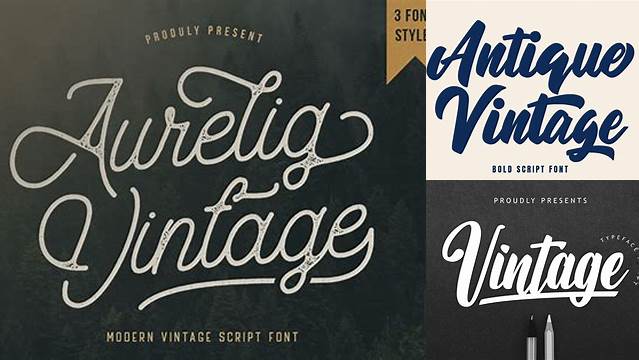
Free Antique Script Fonts: Download & Design Guide
Looking for the perfect touch of vintage charm for your next project? You've come to the right place! This article is your ultimate guide to finding and using antique vintage script fonts – and the best part? Many are available as a free download! We'll dive into what makes these fonts so special, where to find them, and how to use them to create stunning designs. From elegant wedding invitations to eye-catching website headers, discover how these timeless fonts can elevate your creative work. So, let's get started, shall we?
The Allure of Antique Vintage Script Fonts
Antique vintage script fonts possess a unique quality that instantly adds a sense of history, sophistication, and elegance to any design. They evoke a feeling of nostalgia, reminding us of handwritten letters, classic signage, and the artistry of a bygone era. These fonts are characterized by their flowing, often ornate letterforms, which can range from delicate and refined to bold and expressive. The beauty of antique vintage script fonts lies in their ability to convey a specific mood or message, whether it's romance, formality, or a touch of whimsy. The subtle imperfections and unique characteristics of each font give a sense of authenticity that is hard to replicate with modern, digitally-perfect typefaces. They often feature swashes, ligatures, and alternative glyphs, providing designers with a wealth of options to create truly unique and visually appealing designs. Using these fonts allows you to transport your audience to another time, to create a sense of timelessness and style. The versatility of these fonts is remarkable, as they can be used across a wide range of applications. They're ideal for creating a vintage vibe or adding a touch of old-world charm. Think about the impact of these fonts on a poster, a logo, a business card, or even a social media post. The possibilities are endless! Now, let's explore the diverse world of antique vintage script fonts and see how they can enhance your designs. The use of these fonts is not only aesthetically pleasing but also carries with it a sense of history and storytelling. They bring a human element to your work, making it more relatable and engaging for your audience. They are an excellent tool to have in your arsenal, especially if you are a designer. Remember, these fonts are not just about aesthetics; they're about evoking emotion, telling a story, and making your design stand out from the crowd. So, let's get into how you can find and use these fonts effectively.
When downloading fonts from any website, always be cautious. Look for the license information to confirm the usage rights. Also, scan the downloaded files with your antivirus software before installing them on your computer. Staying safe is always the priority, so be sure to follow these guidelines. And there you have it: some of the best places to find free antique vintage script fonts for your next project!
How to Use Antique Vintage Script Fonts Effectively
Once you've found your perfect antique vintage script font, the next step is to know how to use it effectively. While these fonts can add a beautiful touch to any design, it's essential to use them thoughtfully to avoid overwhelming your audience. Here's how to make the most of your vintage script fonts:
- Choose the Right Font: Not all script fonts are created equal. Consider the overall tone and style of your project when selecting a font. A delicate, flowing script might be perfect for a wedding invitation, while a bold, more rugged script could be better suited for a vintage-themed logo. Consider how the font will look in different sizes and contexts. This will help you determine the best fit for your project's requirements. Also, pay attention to the font's readability, especially for longer texts. Make sure the letters are distinct and easy to read at various sizes. When in doubt, experiment with different fonts to see which one best complements your design.
- Use in Moderation: Script fonts are often best used for headlines, titles, or short phrases. Overusing them can make your design feel cluttered and difficult to read. Pair your script font with a more simple, readable font for the body text to create a visual balance. This contrast can also add depth and interest to your design. Choose a font pairing that complements the style of your script font without competing for attention. For instance, a clean, modern sans-serif font can pair well with an elegant script font. Finding the right balance is the key to an appealing and effective design.
- Consider Readability: While script fonts are beautiful, they can sometimes be challenging to read. Ensure the font is legible, especially at smaller sizes. Avoid using script fonts for long blocks of text. Always test your design to ensure readability across various devices and screen sizes. Make sure the font stands out against the background and that the colors provide adequate contrast. Ensure that the kerning and spacing are optimized for readability. Sometimes, small adjustments can significantly impact how easy it is to read the text. If readability is compromised, consider choosing a different font or modifying your design to enhance clarity.
- Pay Attention to Spacing and Kerning: Proper spacing and kerning (the space between individual letters) are critical for readability. Some script fonts require manual adjustment to ensure the letters flow seamlessly. Take the time to fine-tune these elements for a polished look. Experiment with different spacing options to see what works best for your font choice. Pay special attention to the spacing between letters, as this can affect the overall appearance and readability. Kerning can also enhance your design. In some cases, adjusting the space between certain letter combinations can improve the overall visual appeal. This can also help to create a sense of harmony and balance in your design.
- Experiment with Color and Background: The right color and background can significantly impact the effectiveness of your script font. Consider using a darker font color against a light background, or vice versa, to ensure good contrast and readability. Experiment with different colors to see what best complements your design. Consider the mood or feeling you want to create with your design. Certain colors can evoke specific emotions. Try pairing your script font with textured backgrounds to add depth and visual interest. Ensure the background does not overwhelm the font. By following these guidelines, you can master the art of using antique vintage script fonts effectively.
Tips for Combining Script Fonts with Other Design Elements
To create truly outstanding designs using antique vintage script fonts, consider combining them with other design elements. This approach can give your project a more polished and cohesive look. Here are some tips for combining your script fonts with other design elements:
- Pair with Complementary Fonts: As mentioned earlier, pairing your script font with a simpler, more readable font for body text is a great way to create balance. Choose fonts that have a similar style or share a common aesthetic. For example, a classic serif font can complement an elegant script, or a clean sans-serif can pair well with a more modern script. Make sure to select fonts that don't compete for attention. You can use the script font for headings and the other font for the content. You want the fonts to work together harmoniously. Consider the hierarchy of your design. The script font should draw attention to the most important elements, while the other font provides the supporting content.
- Use Graphic Elements: Incorporate vintage-inspired graphic elements such as flourishes, ornaments, and illustrations to enhance the vintage feel. These elements can add visual interest and further emphasize the style of your script font. Choose graphics that complement the overall aesthetic of your design. A well-placed illustration or ornament can elevate the design from ordinary to extraordinary. Experiment with different graphic elements to see what looks best. Incorporating elements from the same time period can also add to the cohesiveness of your design.
- Create a Cohesive Color Palette: Choose a color palette that reflects the vintage aesthetic. Soft, muted tones or classic combinations like black and gold can work beautifully. Consider the mood you want to convey when choosing your colors. Some colors naturally evoke a sense of nostalgia. Use your color palette consistently throughout your design. This will help create a cohesive and professional look. Experiment with different color combinations to find what looks best. Also, consider using a color palette generator to help you discover matching colors that complement your chosen fonts.
- Consider the Layout and Composition: Pay attention to the layout and composition of your design. Ensure that all the elements work together to create a balanced and visually appealing layout. Use the script font strategically for headlines, titles, or key phrases to grab attention. This allows you to control the flow of information. Pay attention to the spacing between your elements. This can greatly affect the overall look of your design. Always test your layout to ensure that it's easy to read and navigate. Experiment with different layouts to find one that best showcases your design. A well-designed layout can make your design visually pleasing and easier to understand.
- Add Texture and Effects: Use textures like paper, parchment, or grunge to enhance the vintage feel. Add effects like drop shadows or outlines to make your script font stand out. Make sure the effects complement your chosen font and don't distract from the main message. Overdoing the effects can lead to the opposite effect. Experiment with different textures and effects to see what works best. Remember, the goal is to add a touch of nostalgia and charm without overpowering the design. By following these tips, you can effectively combine your antique vintage script fonts with other design elements to create stunning results.
Legal Considerations: Font Licensing
Before you start using any antique vintage script font you've downloaded, it's essential to understand the legal considerations, specifically font licensing. Even if a font is advertised as 'free,' there are usually specific rules about how you can use it. Here's what you need to know:
- Personal Use vs. Commercial Use: Most free fonts come with a 'personal use' license. This means you can use them for non-commercial projects, like creating graphics for your personal blog or social media, or for designing flyers for a community event. If you want to use a font for commercial purposes (like a logo for your business, a website, or selling products with the font on them), you'll usually need a commercial license. Always check the font's license to determine the usage rights.
- Open-Source Licenses: Some fonts are released under open-source licenses, such as the SIL Open Font License. This type of license typically allows you to use, modify, and redistribute the font for both personal and commercial purposes, often without any additional fees. However, make sure you fully understand the terms of the license before using the font.
- Font Foundries and Designers: Respect the work of font designers. They invest a lot of time and effort into creating beautiful fonts. Always credit the designer if the license requires it. When you download a font, it is not yours. You're merely granted permission to use it under the terms of the license. Always adhere to the license terms to avoid any legal issues. If you have any doubt about the licensing terms, always contact the font designer or foundry for clarification. This will ensure you're using the font legally and ethically. The legal considerations and rules might vary, so always read the license document carefully. Do your due diligence to respect the rights of the font designers and the applicable laws. This will help you avoid any legal problems and support the creative community.
- Checking the License: Before using a font, always check the license details. The license information is usually found on the website where you downloaded the font. Pay close attention to the conditions, such as the permitted usage, limitations, and any attribution requirements. Make sure you understand these conditions before you begin using the font. The license will specify the ways you're allowed to use the font, such as for personal or commercial projects. Some fonts have restrictions on where you can use them. Others have restrictions on modifying the font itself. Always adhere to these terms to avoid copyright issues. When in doubt, consult the font's documentation or contact the designer for clarification. Proper licensing ensures that you are using the font in a way that respects the designer's rights.
By keeping these licensing considerations in mind, you can use antique vintage script fonts legally and ethically. Remember, respecting the licenses is important to support the design community and avoid any legal issues.
Antique vintage script fonts offer a beautiful way to add a touch of history, elegance, and personality to your designs. With so many free options available, there's no reason not to experiment with these timeless fonts. Remember to choose the right font, use it in moderation, and always consider the license. Now go out there, download some amazing fonts, and create something beautiful!